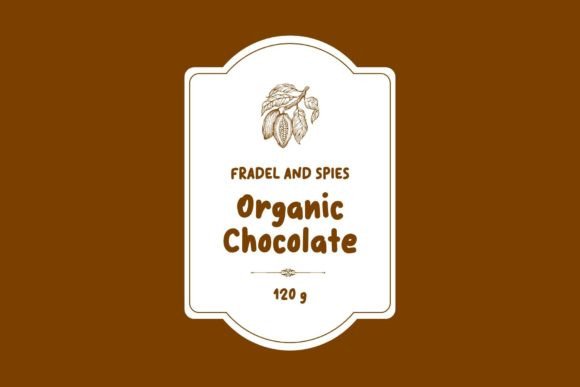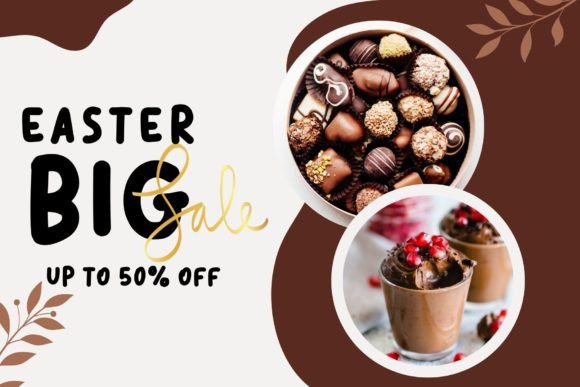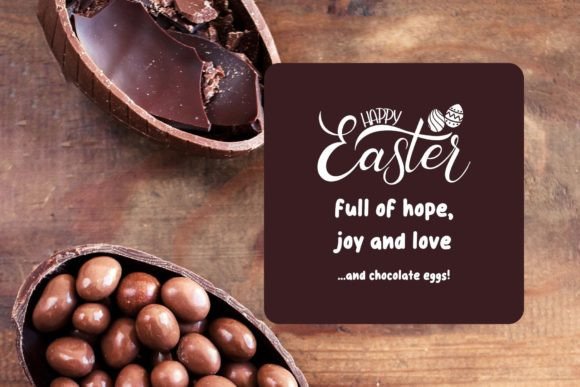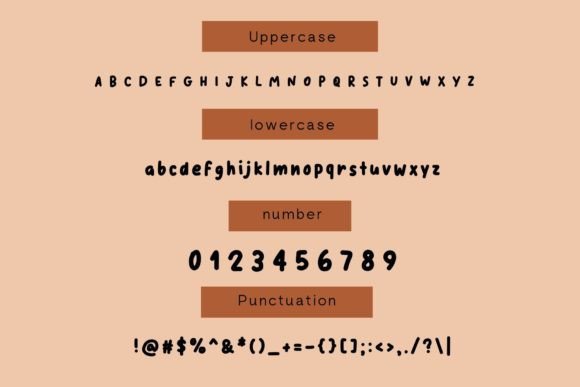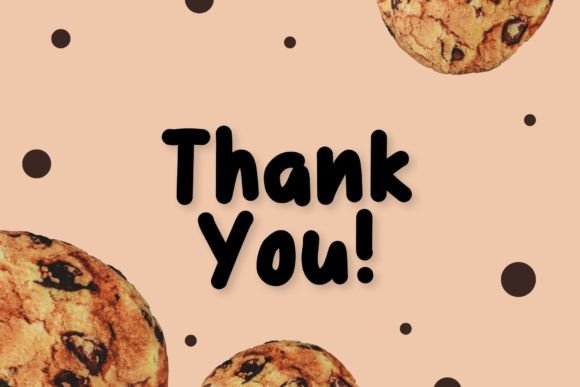
Introducing Chocolate Font: The Sweetest Addition to Your Design Collection
Are you on the hunt for a font that embodies playfulness and authenticity? Look no further than Chocolate Font, a delightful handwritten font that’s sure to become your new favorite. With its charming and whimsical feel, Chocolate Font is perfect for a wide range of design projects, from blog posts and logos to branding, ads, invitations, greeting cards, planners, photo albums, decorations, and more.
What Makes Chocolate Font So Special?
Chocolate Font is more than just a font – it’s a design element that can elevate your projects and make them stand out from the crowd. Its playful and authentic feel makes it perfect for designers and crafters who want to add a personal touch to their work. Whether you’re creating a blog post, a logo, or a social media graphic, Chocolate Font is sure to bring a smile to your audience’s faces.
Endless Design Possibilities with Chocolate Font
One of the best things about Chocolate Font is its versatility. It can be used in a wide range of design projects, including:
- Blog Posts: Add a personal touch to your blog posts with Chocolate Font. Use it for headings, subheadings, or even entire paragraphs to add a playful and whimsical feel to your content.
- Logos and Branding: Create a memorable and recognizable brand with Chocolate Font. Use it for your logo, business cards, or other marketing materials to add a touch of personality to your brand.
- Ads and Social Media Graphics: Make your ads and social media graphics stand out with Chocolate Font. Its playful feel is sure to grab attention and engage your audience.
- Invitations and Greeting Cards: Add a personal touch to your invitations and greeting cards with Chocolate Font. Use it for the main text or for embellishments, such as borders and decorations.
- Planners and Photo Albums: Create beautiful and functional planners and photo albums with Chocolate Font. Use it for headings, captions, or other design elements to add a touch of personality to your projects.
- Decorations: Use Chocolate Font to create beautiful decorations, such as wall art, garlands, or other DIY projects.
Why Choose Chocolate Font?
There are many fonts to choose from, but Chocolate Font stands out from the rest. Here are just a few reasons why:
- Playful and Authentic: Chocolate Font embodies playfulness and authenticity, making it perfect for designers and crafters who want to add a personal touch to their work.
- Easy to Read: Despite its playful feel, Chocolate Font is easy to read, making it perfect for body text and other long-form content.
- Versatile: Chocolate Font can be used in a wide range of design projects, from digital designs to print materials.
- High-Quality: Chocolate Font is a high-quality font that’s designed to look great in any design project.
Tips for Using Chocolate Font
Here are a few tips for using Chocolate Font in your design projects:
- Use it Sparingly: While Chocolate Font is playful and fun, it can be overwhelming if used too much. Use it sparingly to add emphasis and personality to your designs.
- Pair it with Other Fonts: Chocolate Font pairs well with other fonts, such as sans-serif fonts or script fonts. Experiment with different pairings to find the one that works best for your design.
- Experiment with Colors: Chocolate Font looks great in a variety of colors, from bright and bold to soft and pastel. Experiment with different colors to find the one that works best for your design.
Chocolate Font is a sweet addition to any design collection. Its playful and authentic feel makes it perfect for a wide range of design projects, from blog posts and logos to branding, ads, invitations, greeting cards, planners, photo albums, decorations, and more. With its versatility, ease of use, and high-quality design, Chocolate Font is sure to become your new favorite font. So why wait? Add Chocolate Font to your design collection today and start creating beautiful and engaging designs!